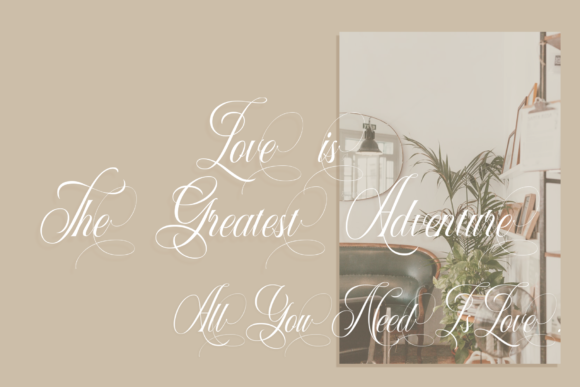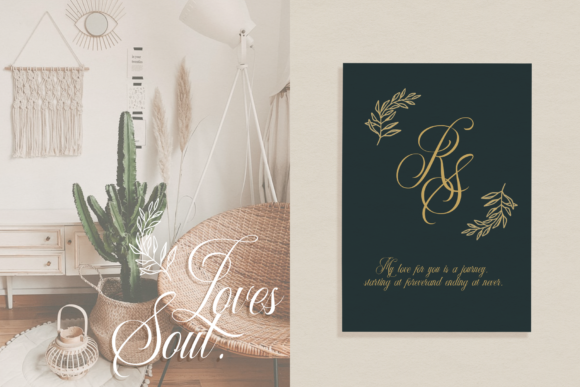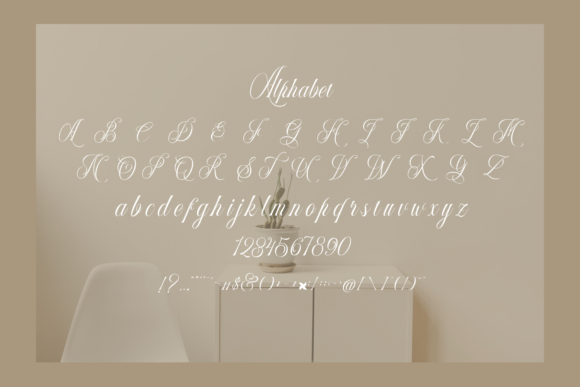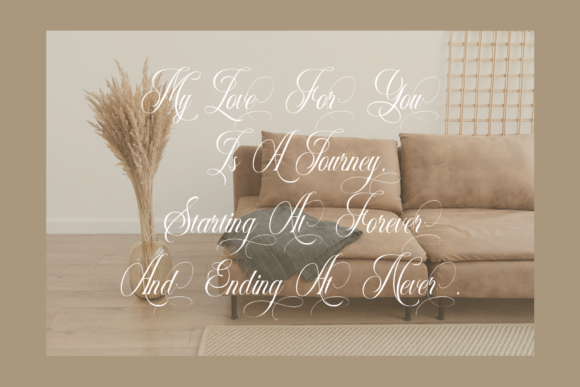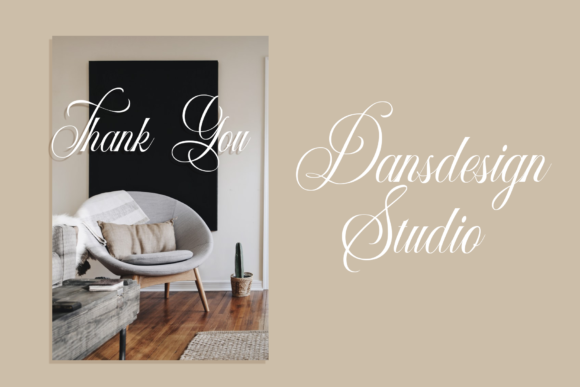
Introduction to Beautiful Soul Font
Beautiful Soul is a ravishing handwritten font.
This versatile script font has a wide spectrum of applications ranging from greeting cards to headlines and is guaranteed to add a romantic feel to your next project .
Key Features of Beautiful Soul Font
Why Choose Beautiful Soul Font?
Beautiful Soul Font offers exceptional quality and versatility, making it a valuable addition to your design toolkit. Whether you’re creating for personal projects or commercial use, Beautiful Soul Font delivers professional results.